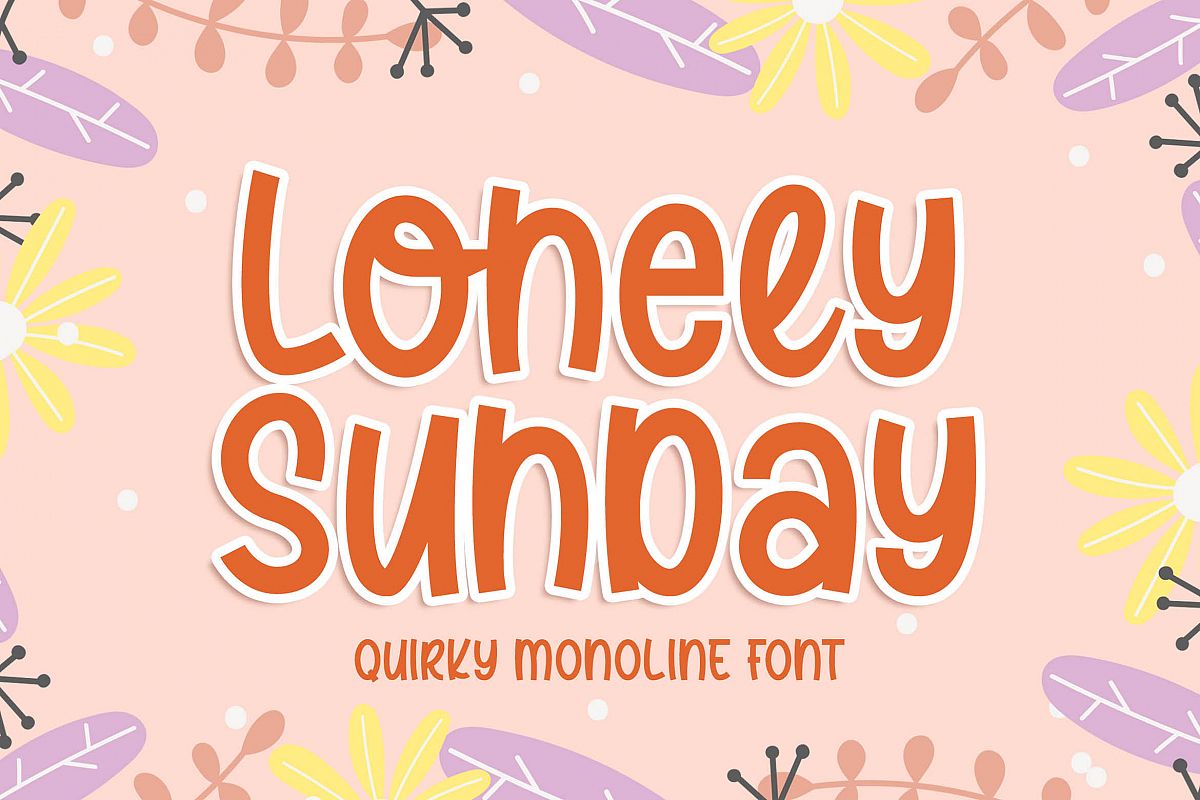
Introducing of our new product the name is Lonely Sunday. Lonely Sundayr inspired by Bouncy calligraphy this font is a fun theme very good for kids, comic, food logo, food menu, wedding invitation, logotype and etc
MULTILINGUAL ACCENT :ØÆøæ¢ÐŒœÁĂÂÀÄĄÅÃǼĆČÇĈĊĎÉĔĚÊËĖÈĘĞĜĢĠĤÍĬÎÏİÌĮĨĴĶĹĽĻĿŃŇŅÑÓŎÔÖÒŐǾÕŔŘŖŚŠŞŜȘŤŢÚŬÛÜÙŰŲŮŨẂŴẄẀÝŶŸỲŹŽŻáăâäàąåãǽćčçĉċďéĕěêëėèęğĝģġĥíîïìįĩĵķĺľļŀńʼnňņñóŏôöòőǿõŕřŗśšşŝșťţŭûüűùųůũẃŵẅẁýŷÿỳźžż